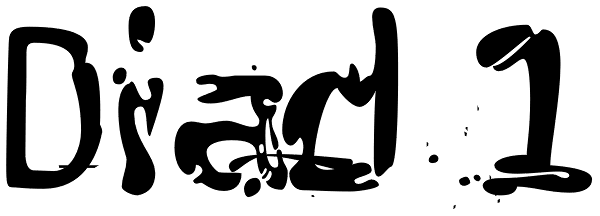
Diad
Diad was born on 2000 in order to design posters about second World War. The original idea was obtained by breaking, burning and getting wet a bunch of written copies with an old writing machine. Today, Diad is a small typographic system useful for...
Diad Dingbats
Diad 1
Diad 2
Diad 3